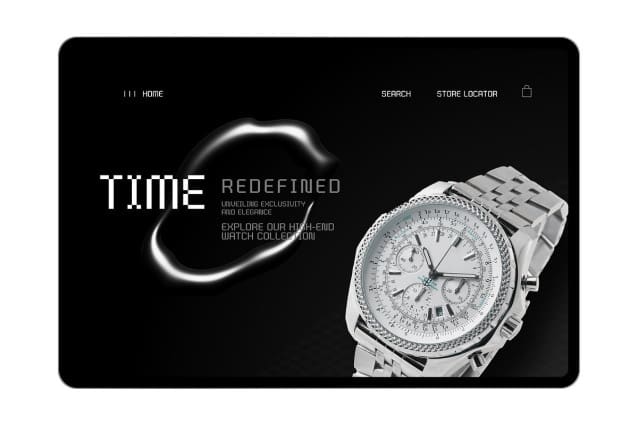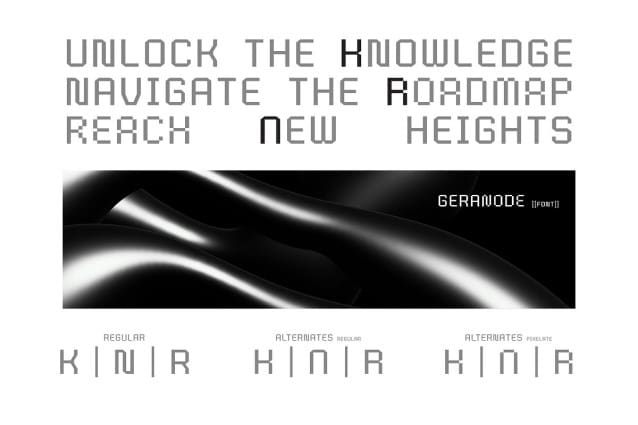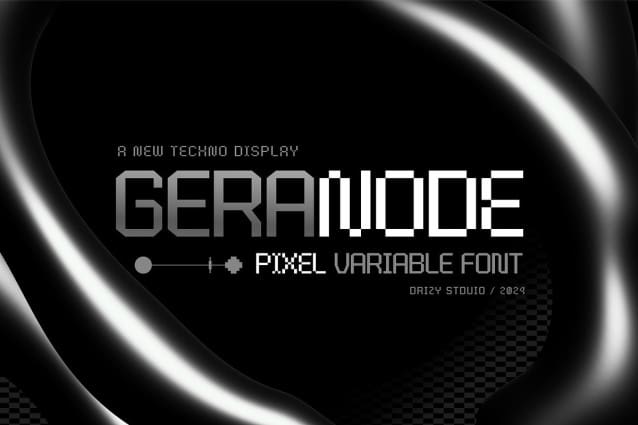
Geranode Display Font
Geranode Display Font, a cutting-edge Techno Display Pixel Font designed to elevate your digital projects with a collide – experimental and dynamic aesthetic. Crafted with precision and innovation, Geranode is the perfect fusion of technology and style, making it an ideal choice for those seeking a modern and impactful typeface.